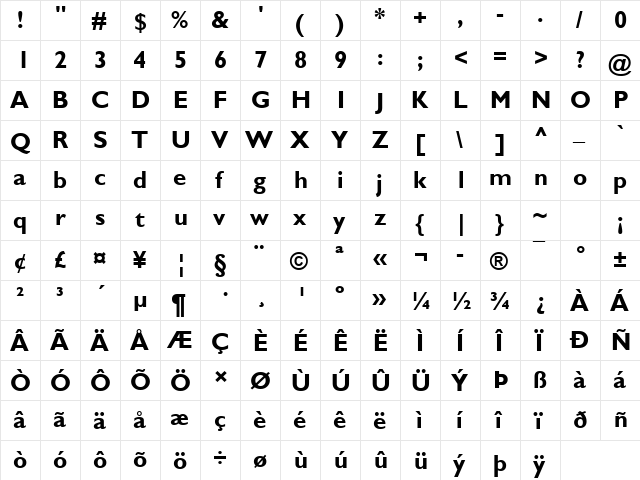
Gill Sans MT Bold
| Foundry | Monotype Typography |
| Designer | Eric Gill |
Design Context for Gill Sans MT Typeface
Gill Sans MT is a composed and adaptable typeface that performs quietly and consistently across a wide range of design contexts. The heavy weight commands attention and anchors typographic hierarchies.